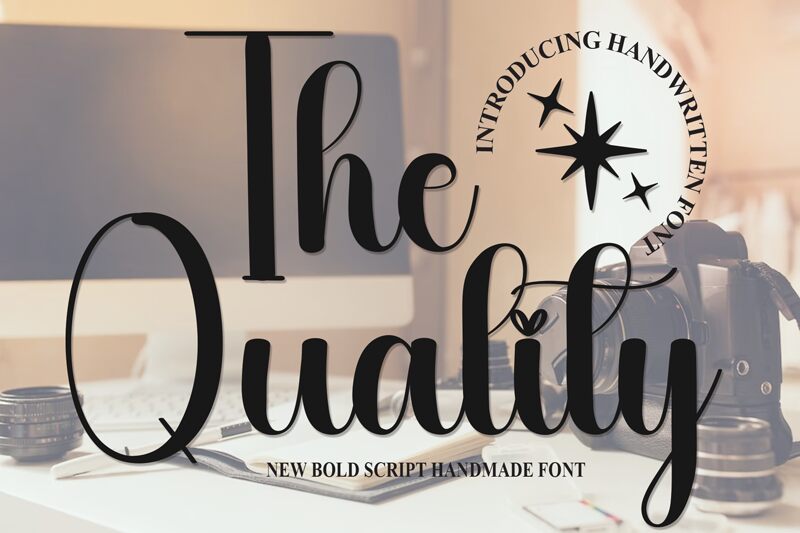
The Quality
The Quality font, crafted by Scratchones, embodies an enchanting elegance with its flowing calligraphic style. Each letter dances gracefully, exuding a sense of sophistication and charm. The use of sweeping curves and striking flourishes creates an inviting visual experience that draws the eye.
Its light font weight adds a subtle delicacy, making it perfect for romantic invitations and elegant branding. The expansive spacing enhances readability while maintaining an airy aesthetic, ideal for creative projects that seek to evoke warmth and intimacy.
Versatile in application, The Quality shines in wedding stationery, luxury packaging, or artistic logos, effortlessly infusing any design with a touch of class and personality. This font transforms words into art, making every message memorable.